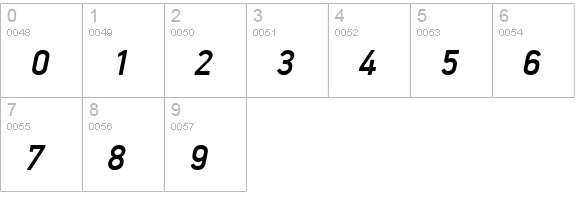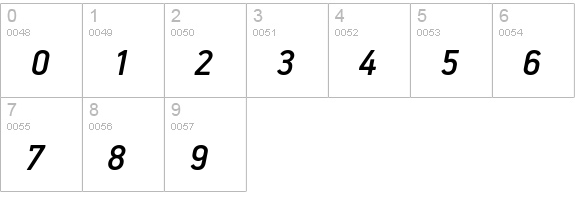
PFHandbookPro-MediumItalic is a versatile and elegant font that adds a touch of sophistication to any design project. With its sleek and modern aesthetic, this typeface is perfect for creating a professional and polished look. The medium weight and italic style of PFHandbookPro-MediumItalic make it ideal for headers, titles, and emphasis within text. What makes PFHandbookPro-MediumItalic even more appealing is that it is available for free download at FontsMarket.com. This means you can easily access this high-quality font without any cost, making it a valuable addition to your font collection. Whether you are designing a website, creating promotional materials, or working on a branding project, PFHandbookPro-MediumItalic is a reliable choice that will elevate your design to the next level.